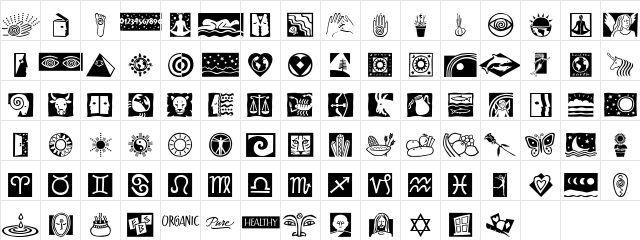
DF Holistics ITC TT Regular
| Foundry | International Typeface Corporation |
| Designer | Teri Kahan |
Design Context for DF Holistics ITC TT Typeface
DF Holistics ITC TT is a composed and adaptable typeface that performs quietly and consistently across a wide range of design contexts.